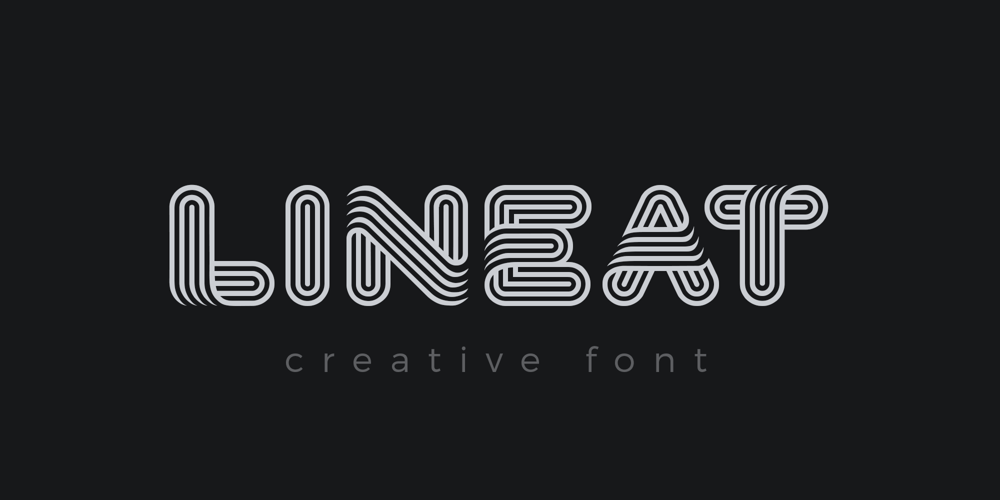
Lineat Font Family was designed by Dmytro Poliakh and published by Sentavio. Lineat contains 1 styles and family package options. Lineat is stylish innovative creative font can be used as logo design and branding, titles & headers, posters & banners in such areas as fashion, high-tech, internet & computers, business innovations, sport & entertainment etc. –Uppercase